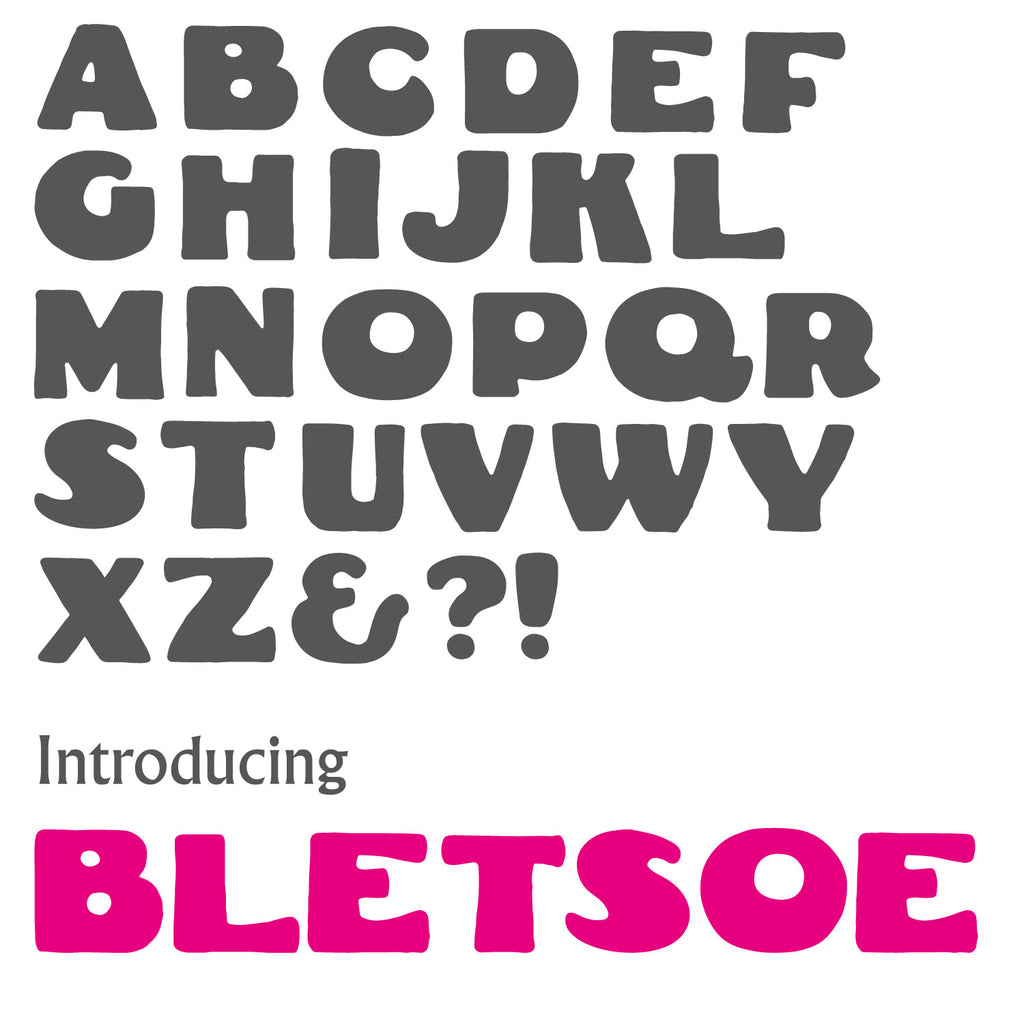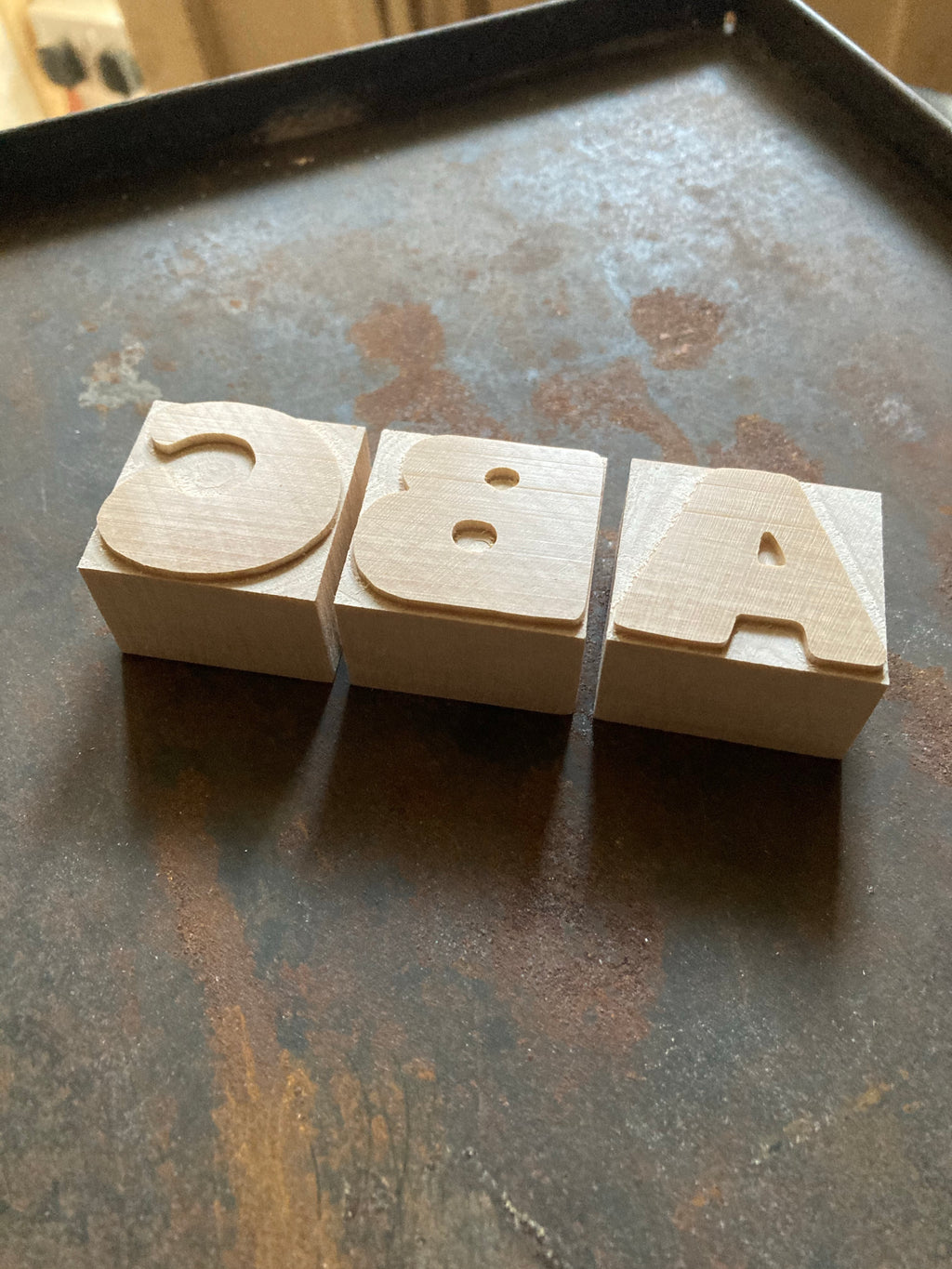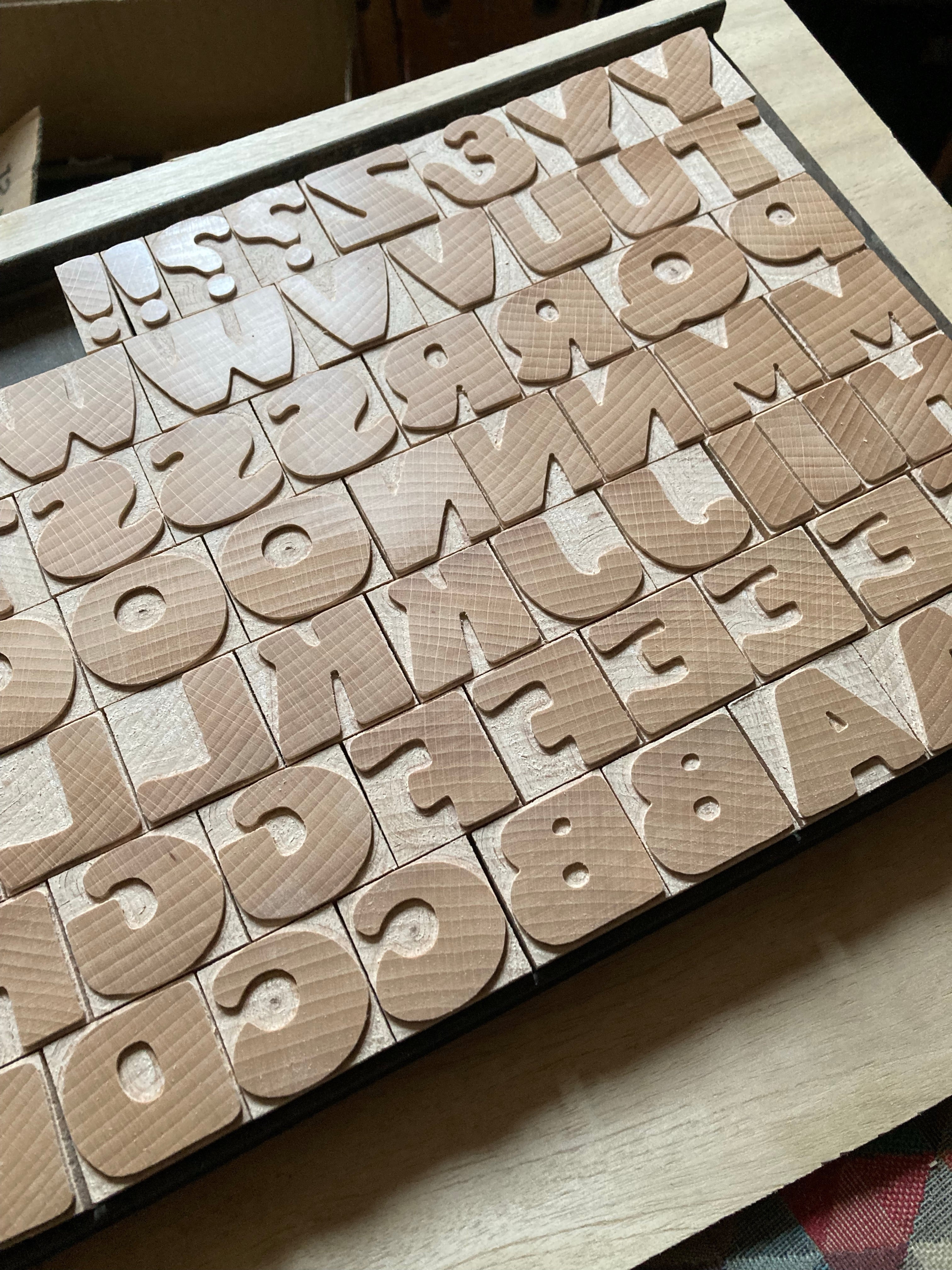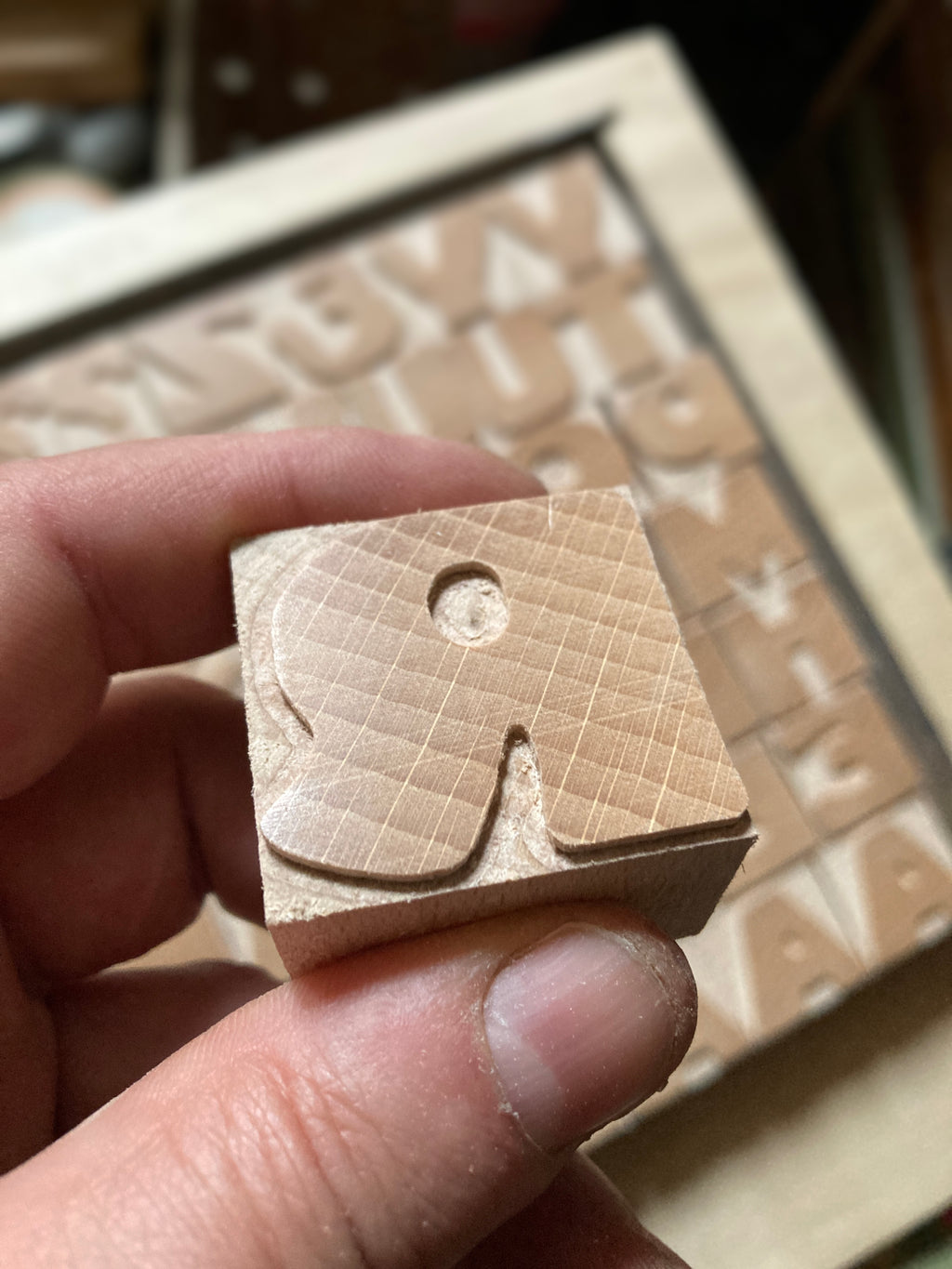
'Bletsoe' letterpress woodtype typeface
Introducing 'Bletsoe' - designed by Mark McKellier and based on a typeface from 'Studio Handbook - Letter and Design for Artists and Advertisers' by Samuel Welo.
8 line (33.8mm) version cut from end grain English hardwood using a combination of modern CNC technology and traditional hand woodworking tools (including an original printers saw), made to English type-high (0.918in or 23.3mm) within plus or minus 0.1mm tolerance, sealed with shellac and hand finished with a traditional polished printing surface.
End grain English hardwood, clear shellac
Each block varies in width however average size is 38mm x 23.3mm x 33.8mm.